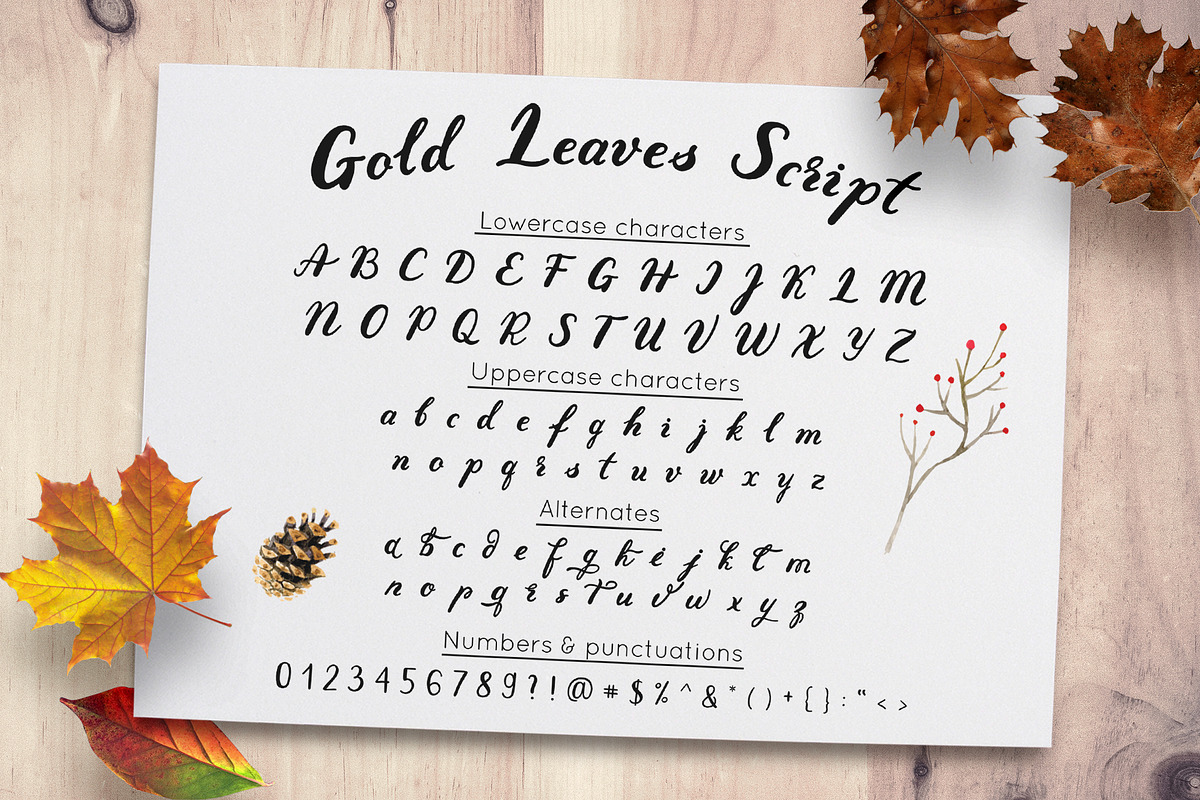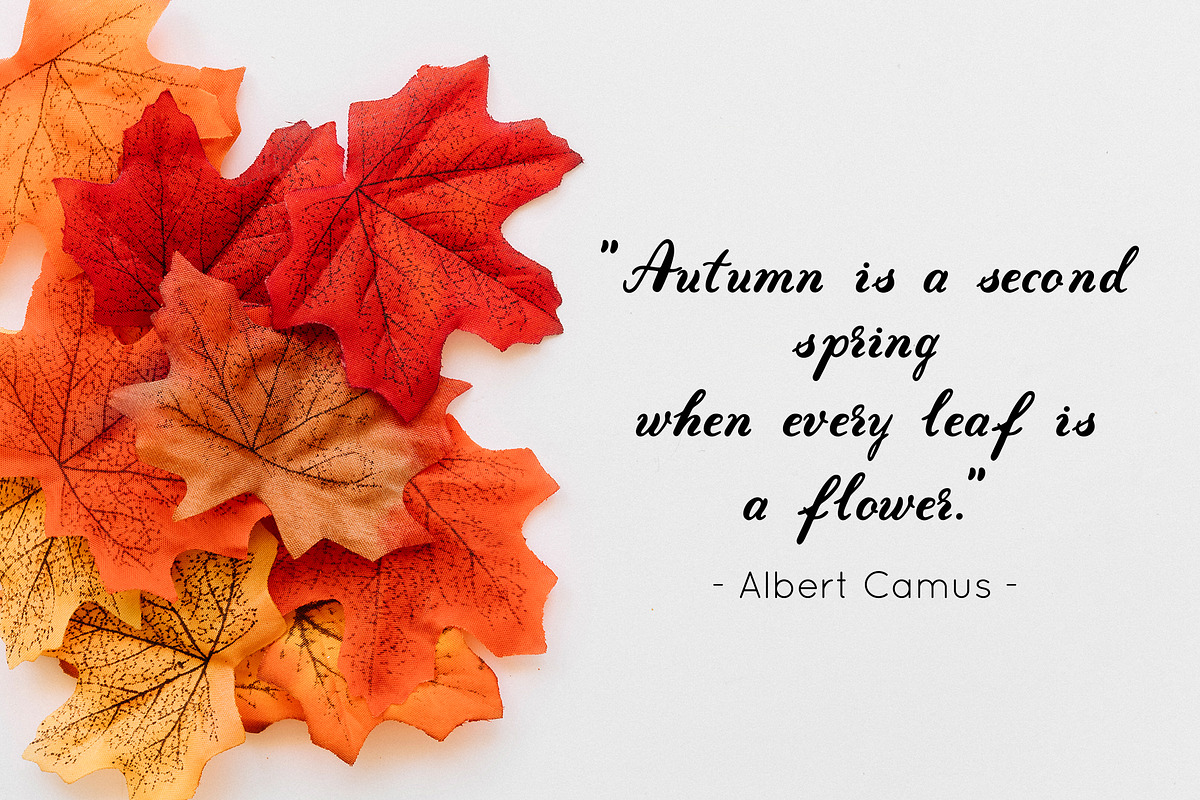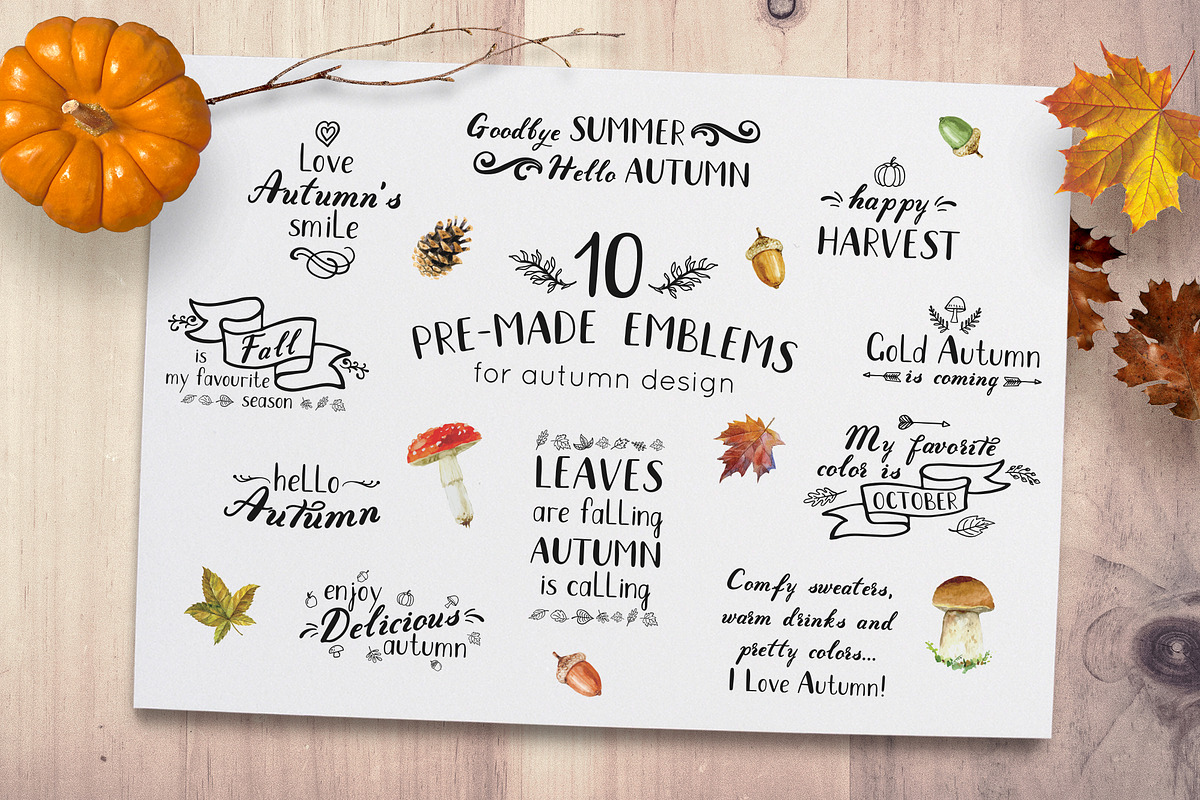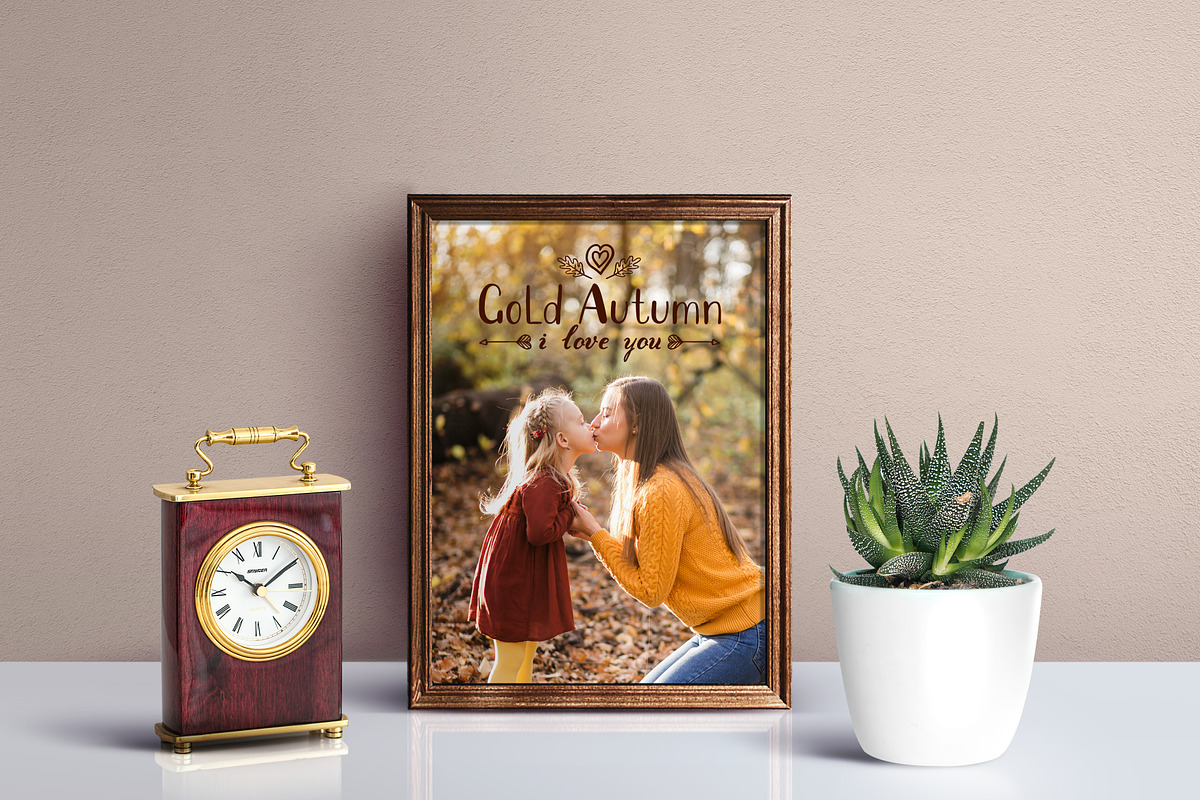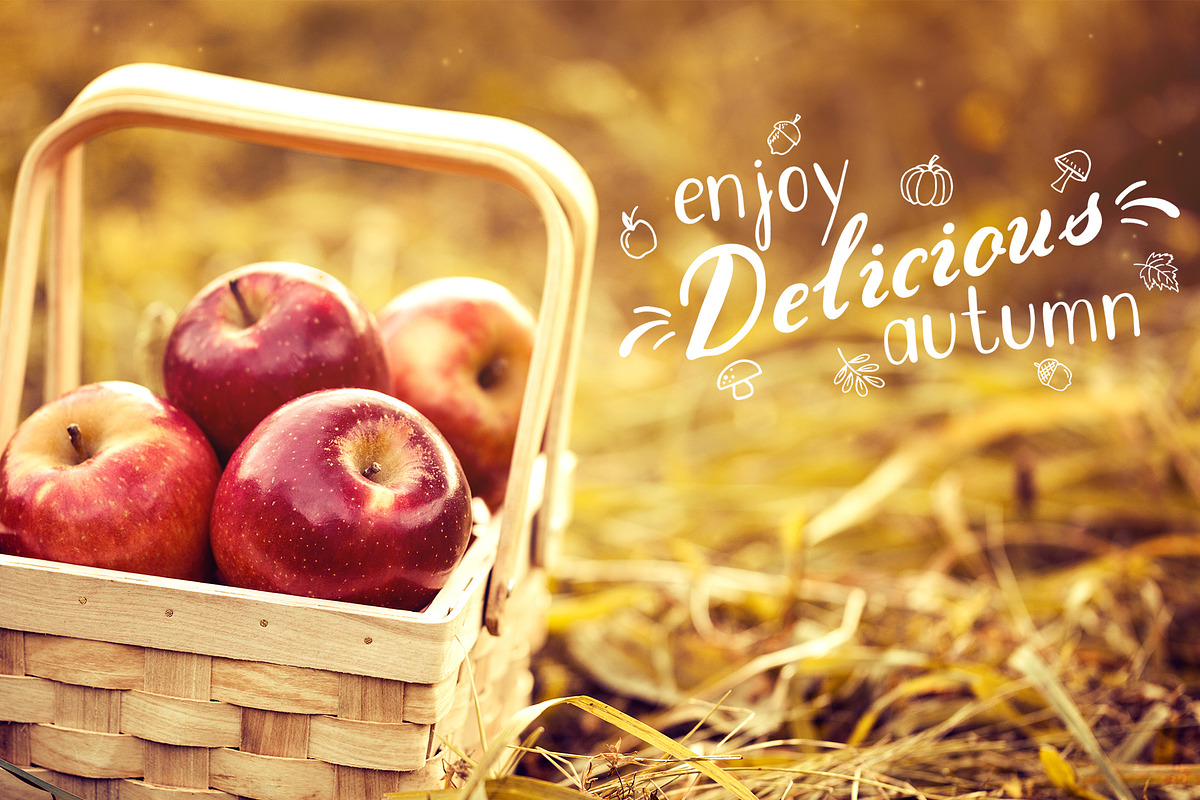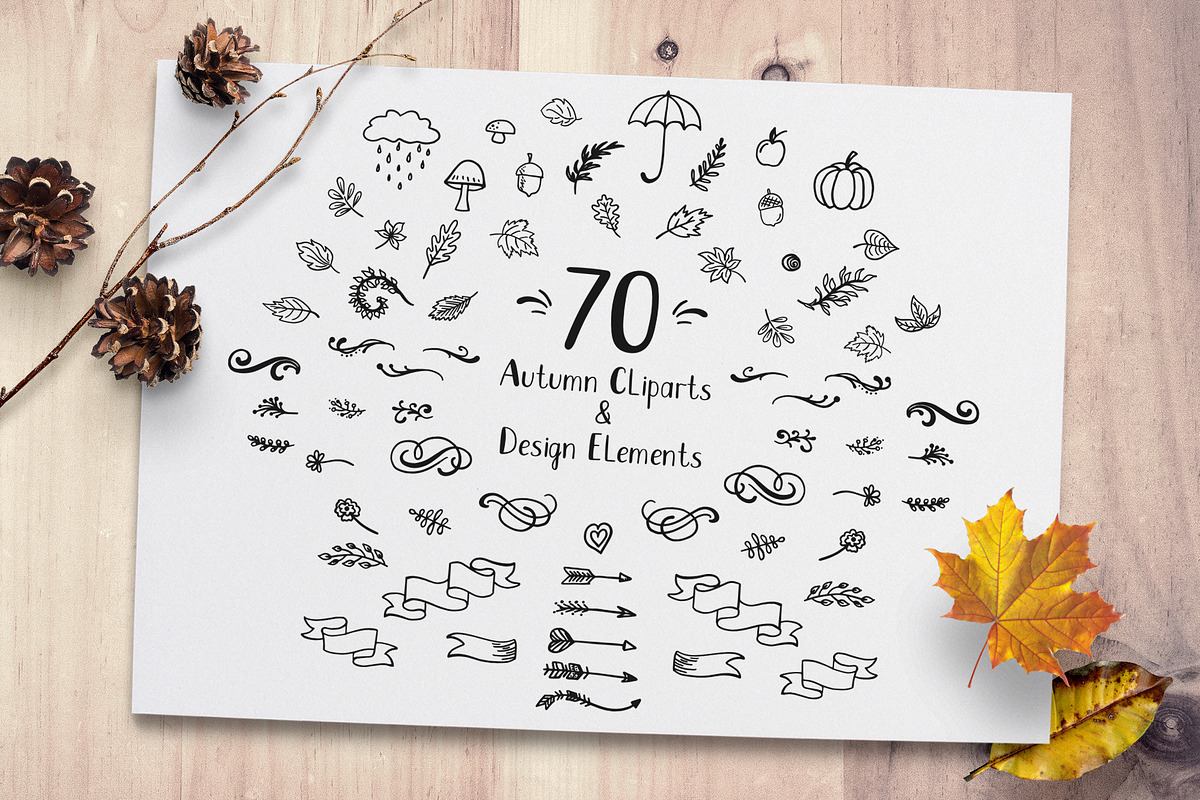
Autumn - fall in love font duo
Hello! I'm glad to introduce you my new font Autumn - fall in love, which includes Gold Leaves script, Fall In Love Script, 70 autumn cliparts and design elements and 10 pre-made emblems.
This font duo with illustrated doodles is really playful for DIY autumn design, projects, labels, cards, branding, sale banners. Perfect for making autumn quotes, wall art, packaging, photo overlays, scrapbooking, websites and much more.
Both Gold Leaves and Fall In Love scripts have uppercase, lowercase characters, numbers and punctuations. Gold Leaves script also has alternates.
Creative autumn illustrations together with Autumn - fall in love script will help you to create the cutest Typo designs ever!